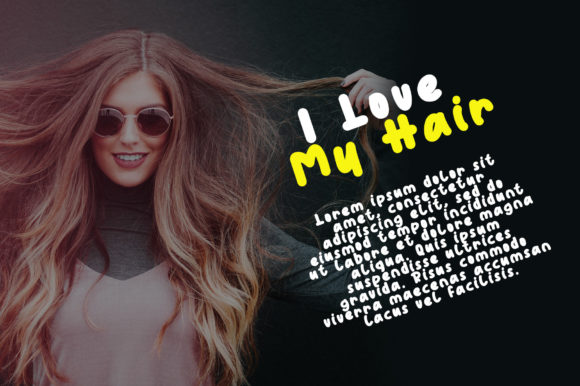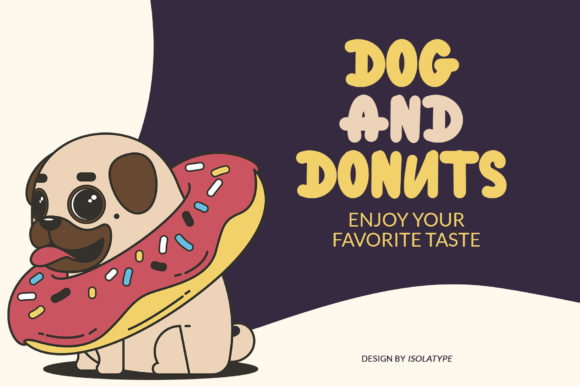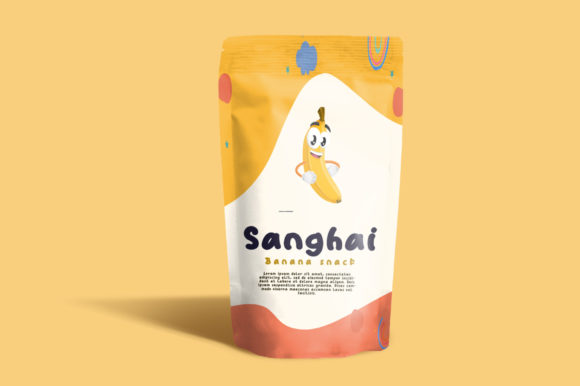
Introduction to Father’s Silhouette Font
Have you ever been working on a creative project, only to have it feel like it’s missing that special something? Maybe you’ve spent hours designing, only to realize your vision isn’t quite translating onto the page? That’s where a design resource like the Father’s Silhouette Font comes in – a playful display font that adds a touch of whimsy to any project.
With its unique design and transparent background, the Father’s Silhouette Font is the perfect addition to any high-quality design. Whether you’re working on a personal project or a commercial campaign, this free download is sure to make your work stand out.
As a valuable resource for designers, the Father’s Silhouette Font offers endless possibilities for creative expression. Its versatility and unique style make it a must-have for any design enthusiast looking to take their projects to the next level.
Key Features of Father’s Silhouette Font
- Unique Silhouette Design: A creative and artistic font with a silhouette design that adds a personal touch to any project.
- High-Quality Design Resource: A high-quality design resource that is perfect for use in various creative projects, including logos, graphics, and more.
- Transparent Background: The font features a transparent background, allowing users to easily layer it over other design elements.
- High Resolution: The font is available in high resolution, making it suitable for use in large-scale designs and prints.
- Perfect for Personal Projects: The Father’s Silhouette Font is a great choice for personal projects, including family reunions, weddings, and other special events.
Honest Review: Father’s Silhouette Font
As a designer, I’m always on the lookout for unique and high-quality design resources. I recently stumbled upon the Father’s Silhouette Font, and I was excited to give it a try. Here’s my honest review.
What works well: ✨ The Father’s Silhouette Font has a beautiful, minimalist design that’s perfect for creative projects. The font is clean and elegant, making it a great choice for wedding invitations, baby announcements, and other special occasions. I also appreciate that the font has a transparent background, which makes it easy to use on any design.
- Perfect for creative projects
However, I do have a few limitations to mention: ⚠️ The font is a bit limited in its character set, which may not be suitable for longer texts. Additionally, the font may not be as versatile as some other fonts, which may limit its use in certain design contexts.
Overall, I’m impressed with the Father’s Silhouette Font. It’s a beautiful, high-quality design resource that’s perfect for creative projects. While it may have a few limitations, I think it’s well worth downloading and trying out.
Father’s Silhouette Font is a free download that offers a high-quality design resource for your creative project. This font features a transparent background, making it perfect for overlaying on images or using as a standalone element.
To get the most out of Father’s Silhouette Font, experiment with different font sizes, colors, and placements to create a unique design. You can also combine it with other design elements to add depth and interest to your project.
Father’s Silhouette Font is commonly used in:
- Graphic design projects
- Marketing materials
- Photography overlays
- Wedding invitations